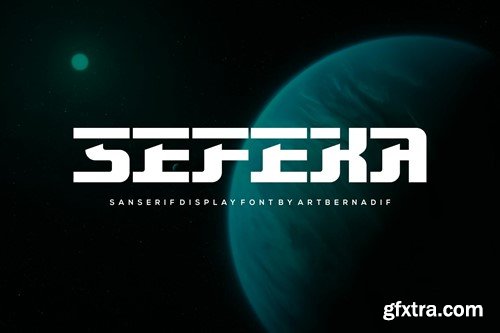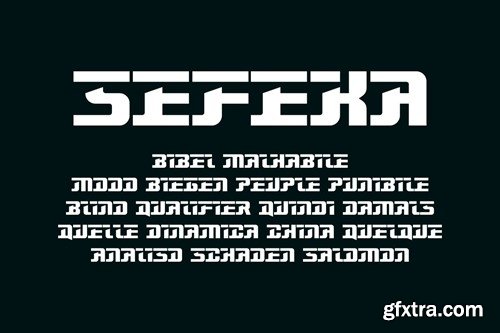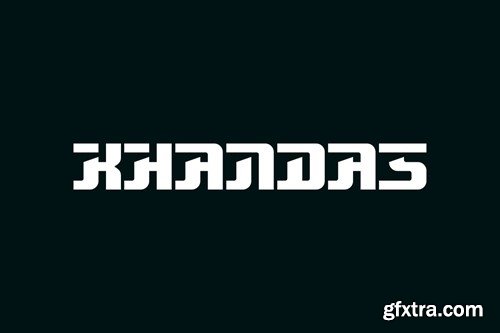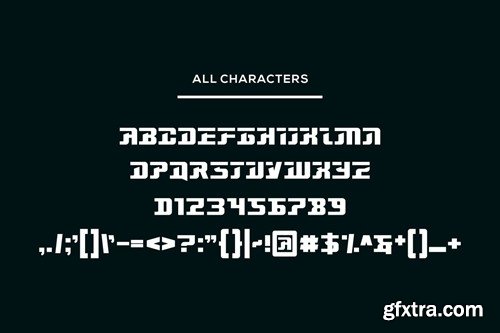
Sefeka Font
Introducing our new product Sefeka Font - Modern Font Sefeka Font- Modern Font is a bold and authentic display font. The font is suitable for any branding project like logo, t-shirt printing, esport, and many more. outstanding in a wide range of contexts. availlable